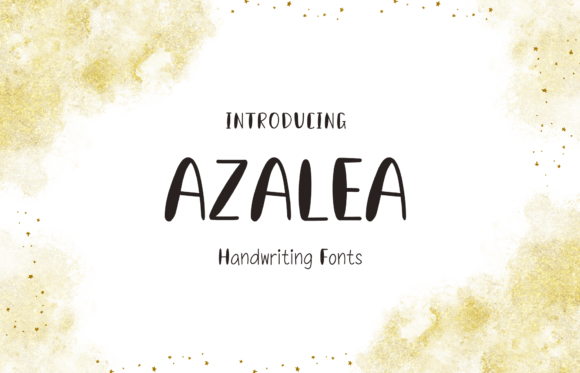
The Sweet and Friendly Azalea Font: A Designer’s Delight
As a designer, I’ve had my fair share of font struggles. I recall working on a wedding invitation project, determined to create a whimsical and romantic feel. Hours were spent scrolling through font libraries, but nothing seemed quite right. That was until I stumbled upon the Azalea font. Its sweet, friendly, and handwritten charm instantly won me over. In this article, I’ll share my experience with Azalea, its features, and how to make the most of this beautiful font.
First Impressions: A Review of Azalea Font
Azalea font is a sweet and friendly handwritten display font that has captured my heart. Here’s what I love about it:
- ✨ Cute and Fun: Azalea’s playful vibe makes it perfect for crafts, digital design, presentations, or writing wedding invitations, cards, and more.
- ✅ Versatile: This font is ideal for use in school for both teachers and students, and works great for comic book styles, games, love shirts, posters, and movie titles.
- 💕 Emotional Connection: Azalea’s whimsical feel evokes emotions and creates a connection with your audience, making it perfect for designs that require a personal touch.
While Azalea is a delightful font, it’s not without its quirks:
- 🤔 Limited Formality: Azalea’s playful nature makes it less suitable for formal or professional designs, such as business reports or academic papers.
- ⚠️ Legibility at Small Sizes: While Azalea is beautiful at larger sizes, it may become less legible at smaller sizes, so use it wisely.
- Experiment with OpenType features, such as glyphs and stylistic alternates, to add more personality to your design.
- Take advantage of OpenType features, such as ligatures and stylistic sets, to add more flair to your design.
The Story Behind Azalea Font
Azalea font was created with the intention of capturing the whimsical and romantic feel of handwritten scripts. Its designer aimed to create a font that’s both fun and elegant, perfect for designs that require a personal touch. While the real story behind Azalea’s creation may be unknown, its charm and versatility have won over the hearts of many designers.
| What is Azalea font best used for? | Azalea font is best used for designs that require a sweet, friendly, and whimsical feel, such as crafts, digital design, presentations, wedding invitations, and more. |
| Is Azalea font suitable for formal designs? | No, Azalea font is not suitable for formal designs due to its playful nature. It’s best used for designs that require a personal touch. |